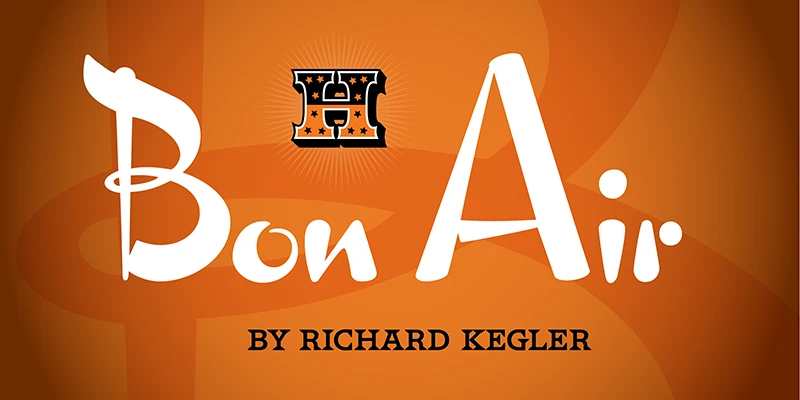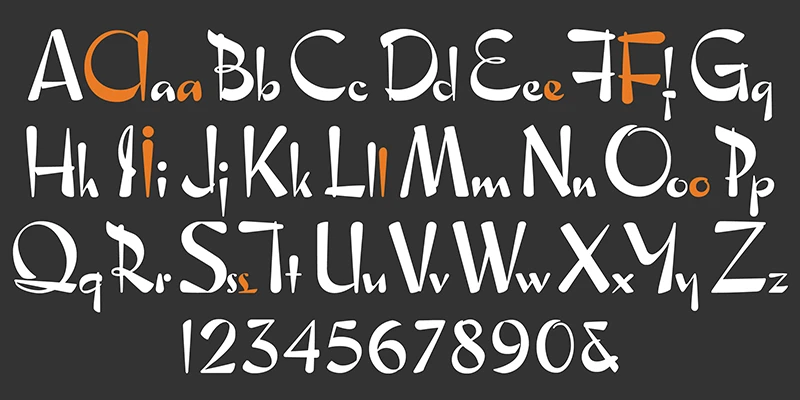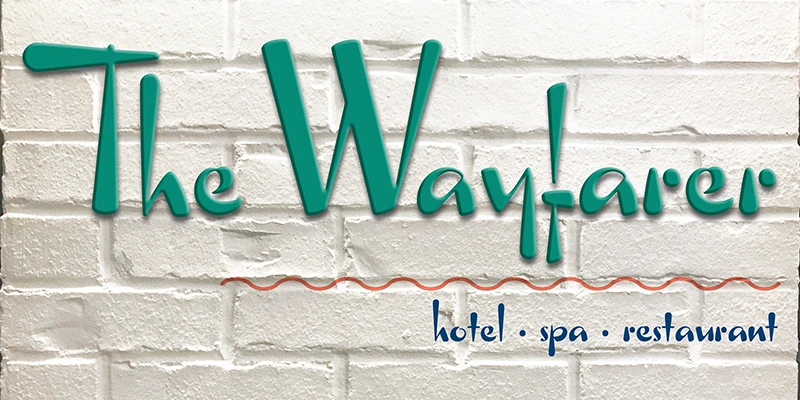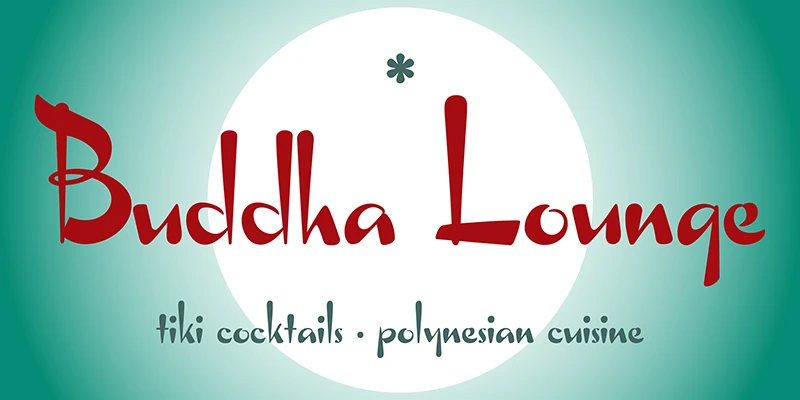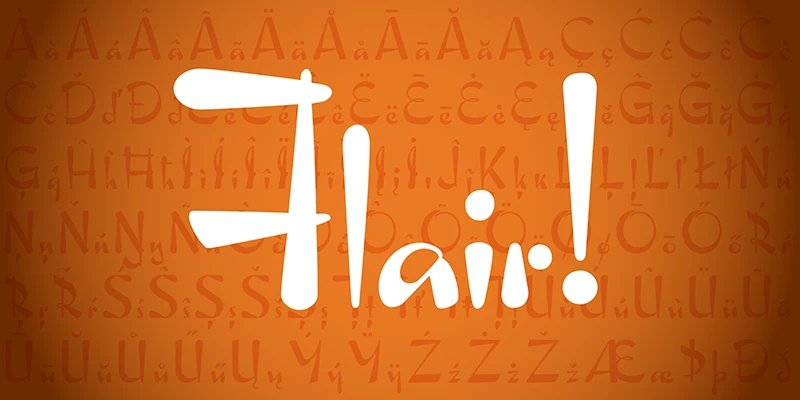
HWT Bon Air is a Mad Men-era advertising script for streamlined cars, exotic destinations, and boutique motels branded as resorts. Trademarked in 1961, it was one of the last new designs cut by Hamilton until the museum revival this century. Richard Kegler had only photographs and rubbings on which to base his digitization. A photostat proof was found after the project was finished. Bon Air was revived from the past, but it’s just as effective as a foil for the future.
Designed by Richard Kegler
Bon Air Regular